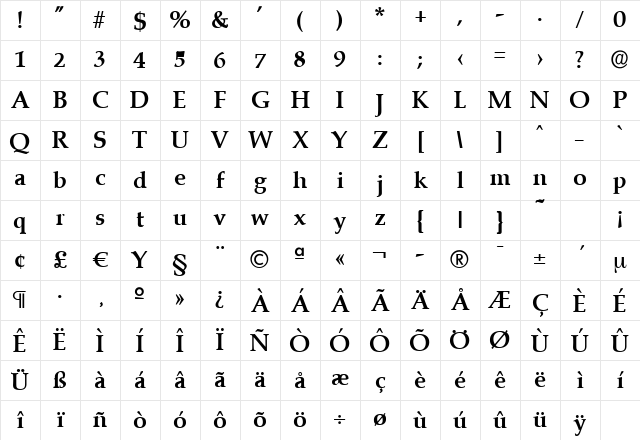
Complete JoelBecker Bold glyph index. Displaying only characters natively supported by JoelBecker Bold font.
JoelBecker is a composed and adaptable typeface that performs quietly and consistently across a wide range of design contexts. Its bold stroke weight gives it real presence on the page.